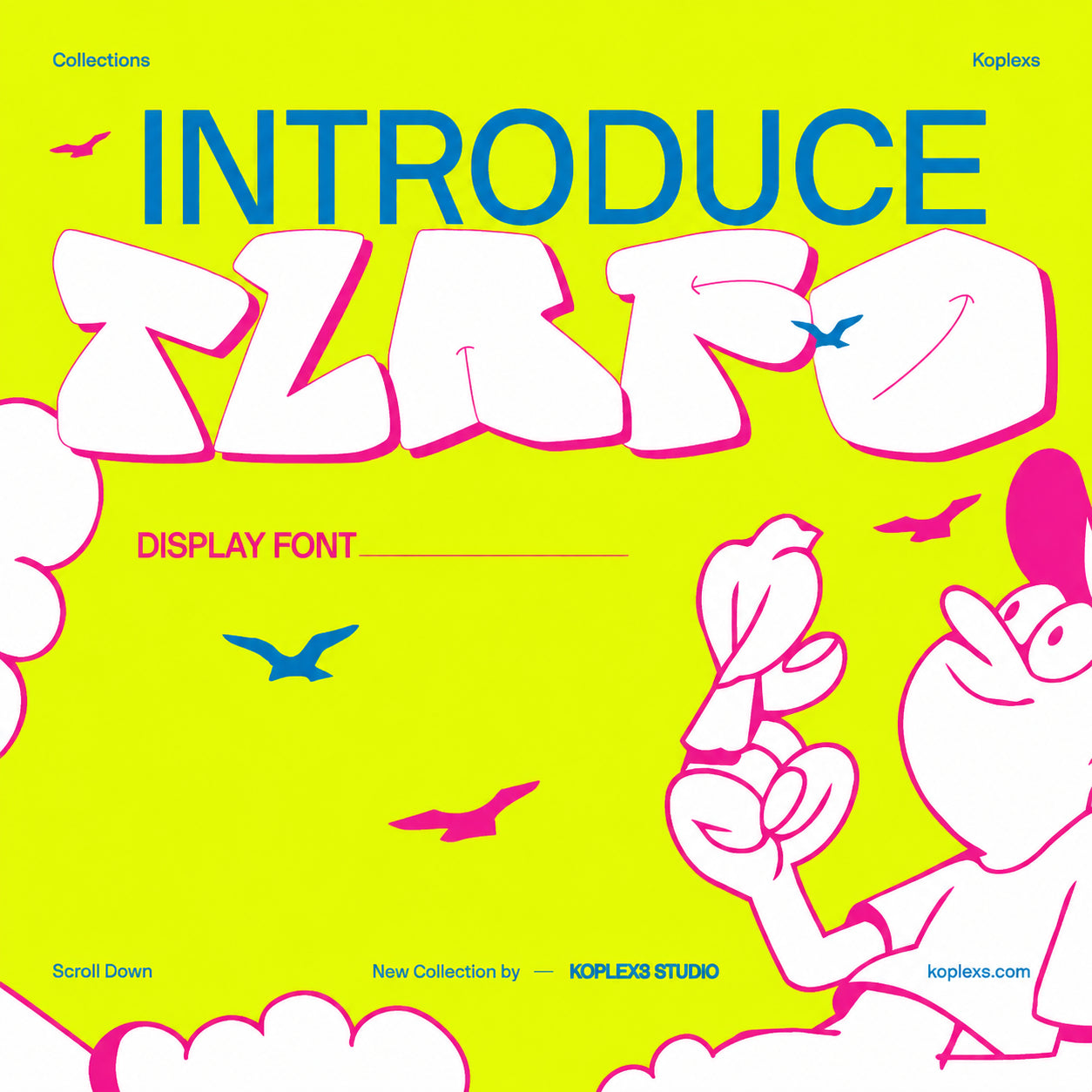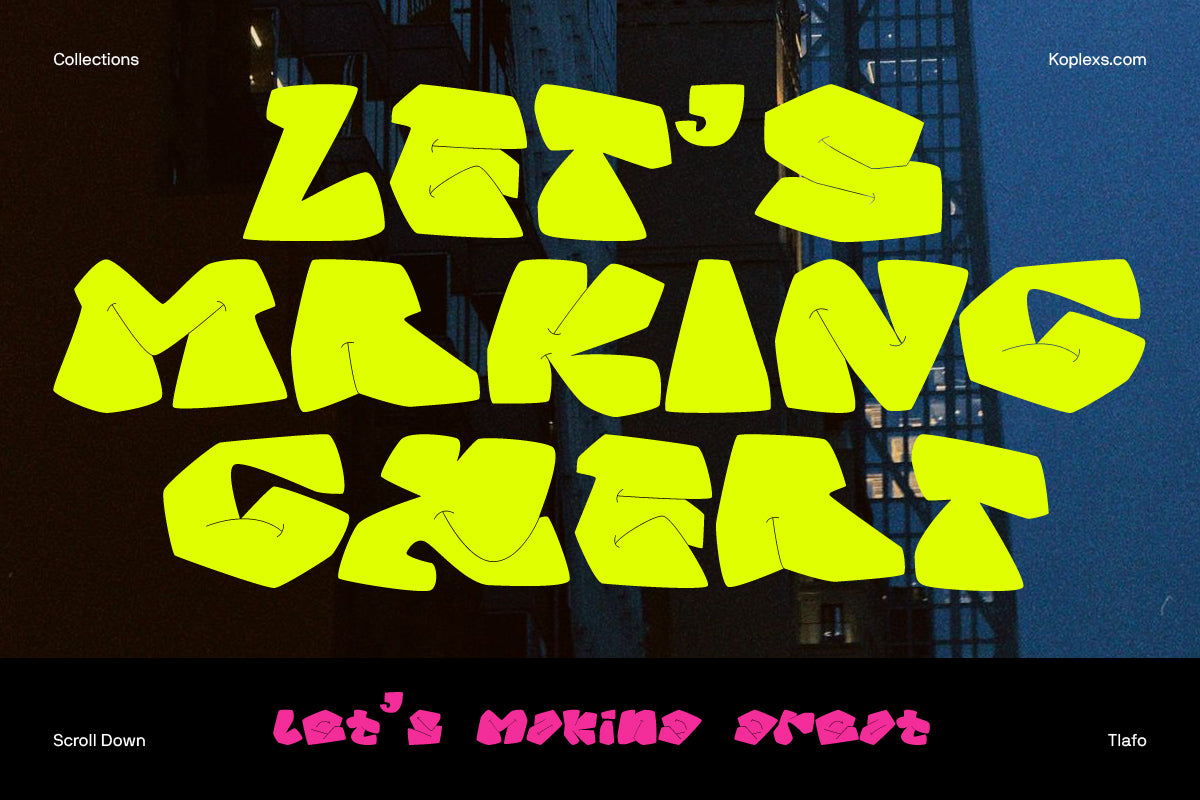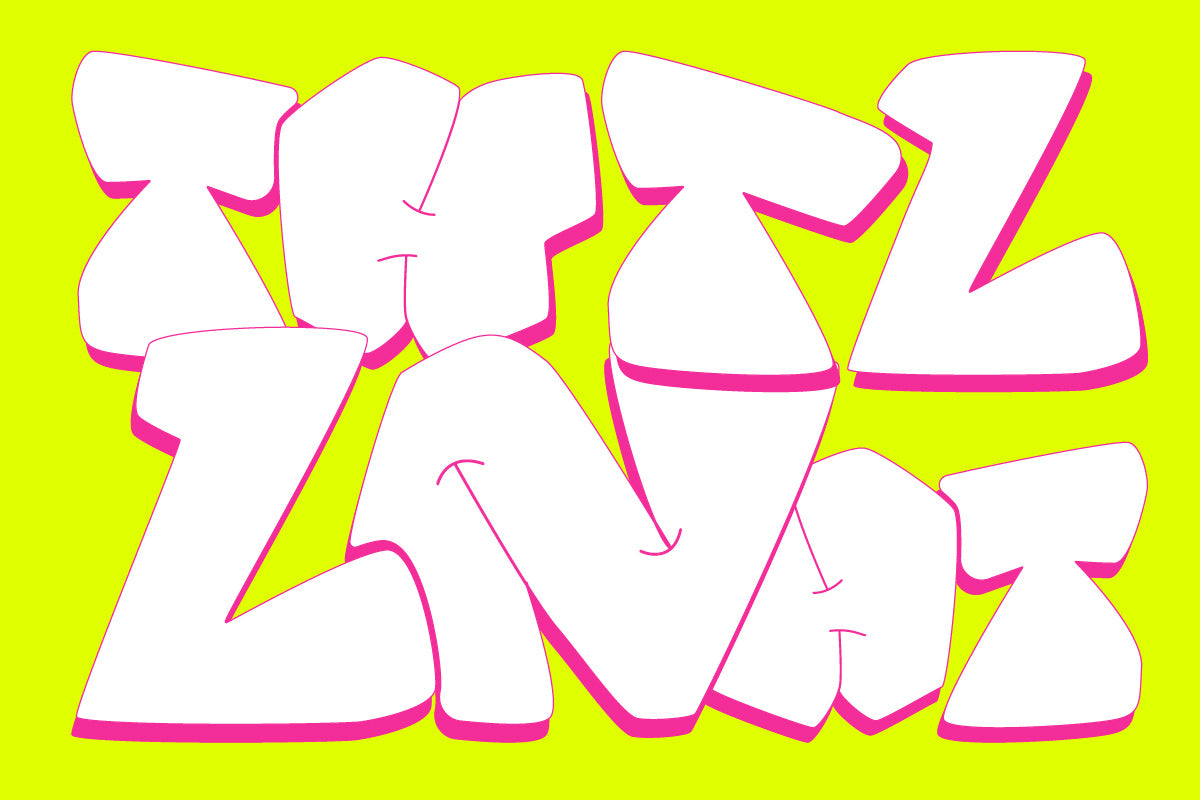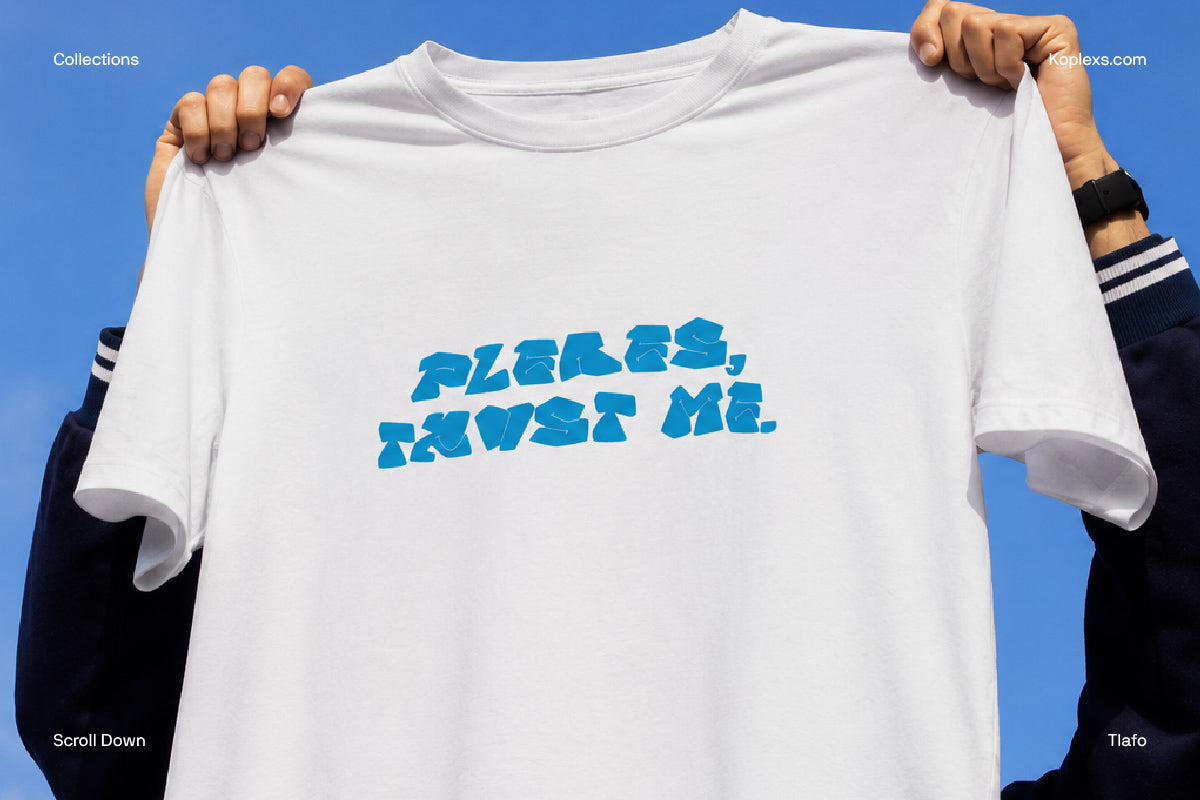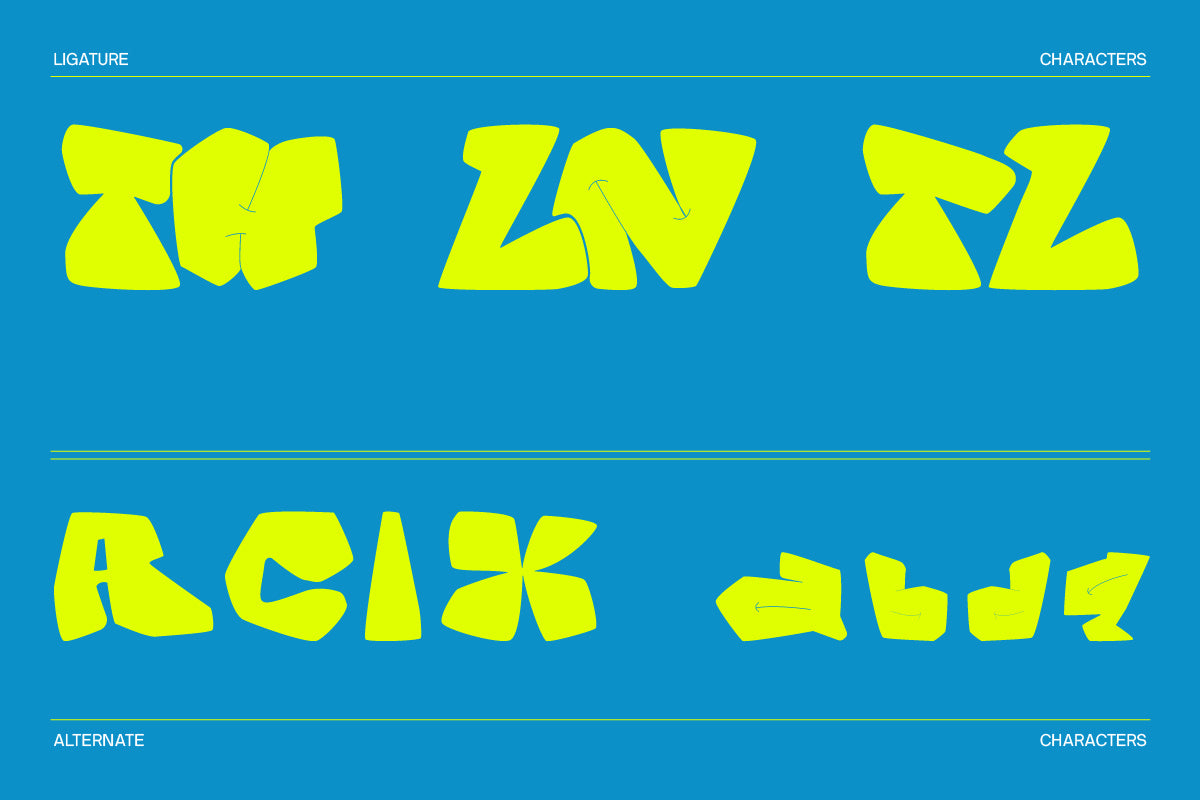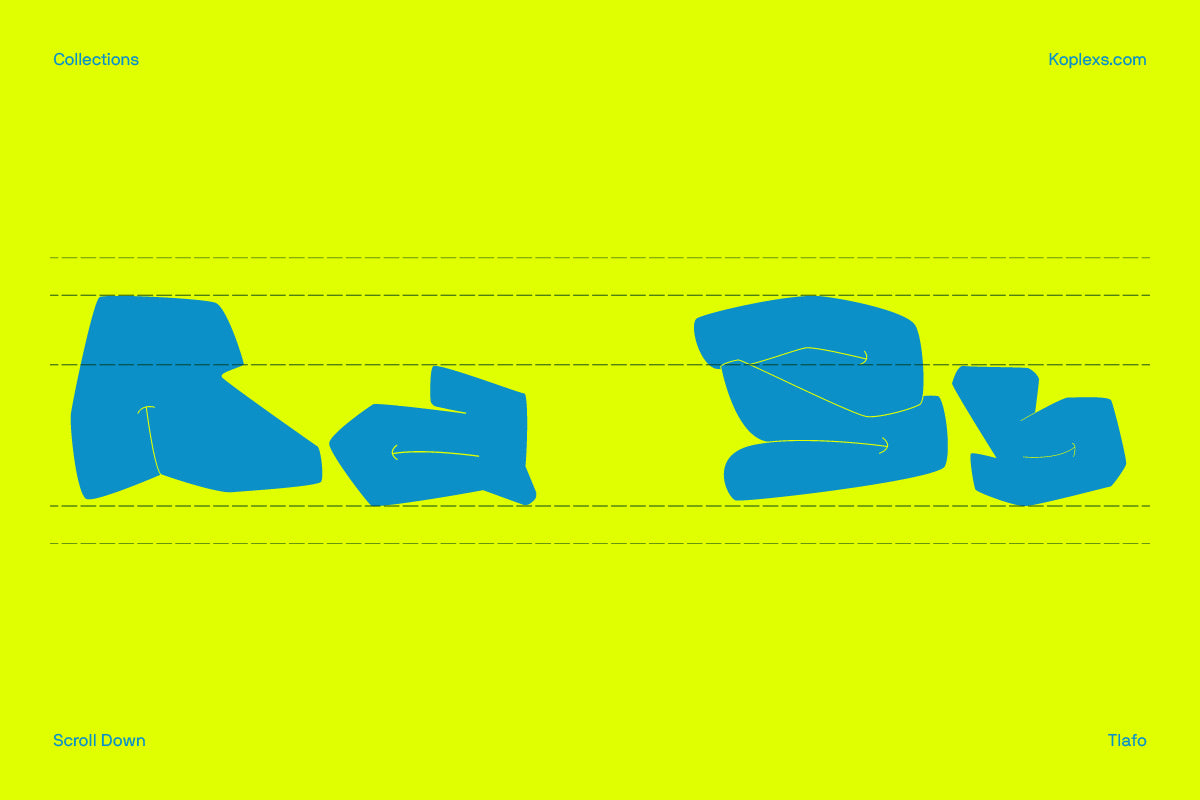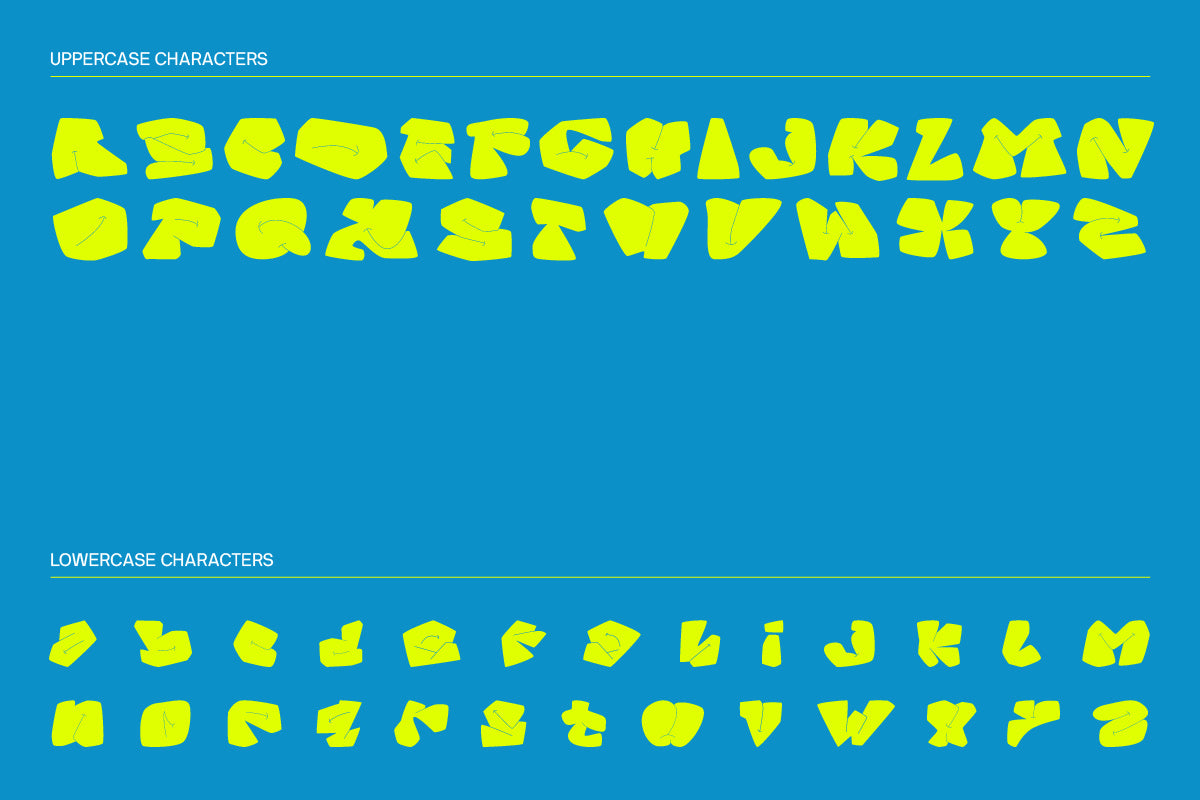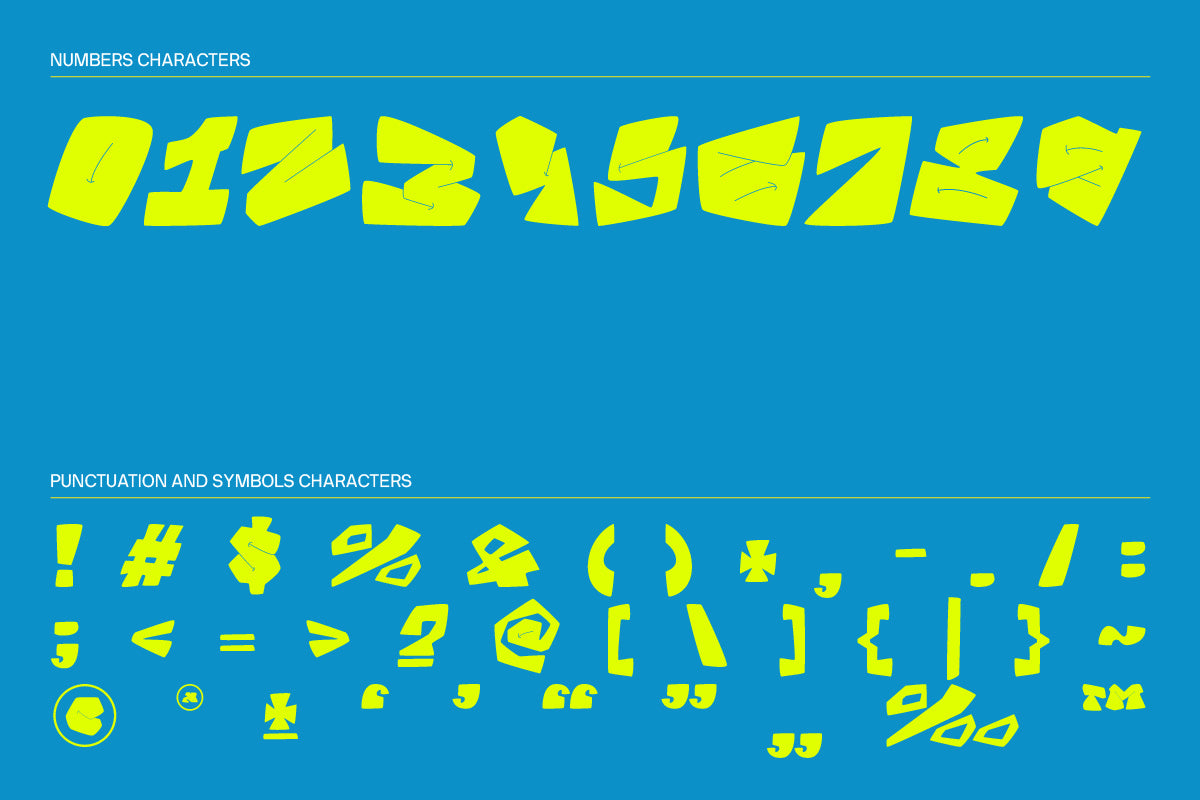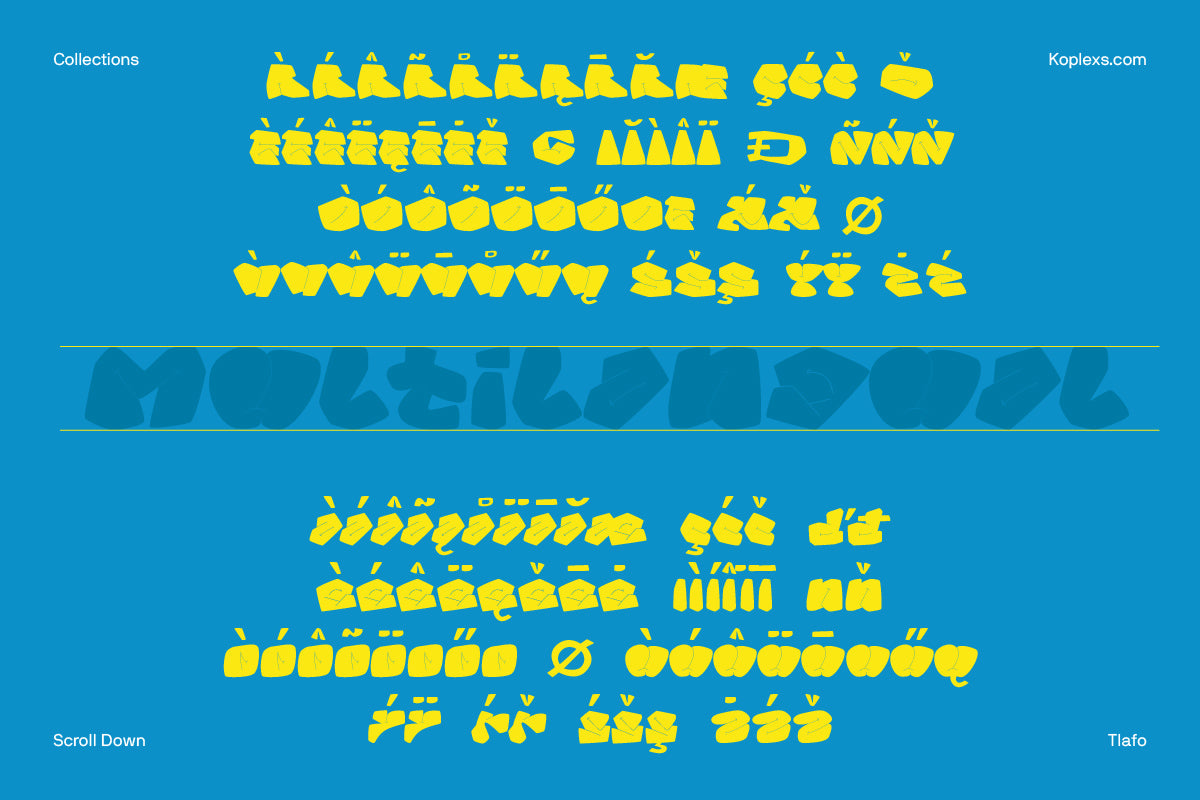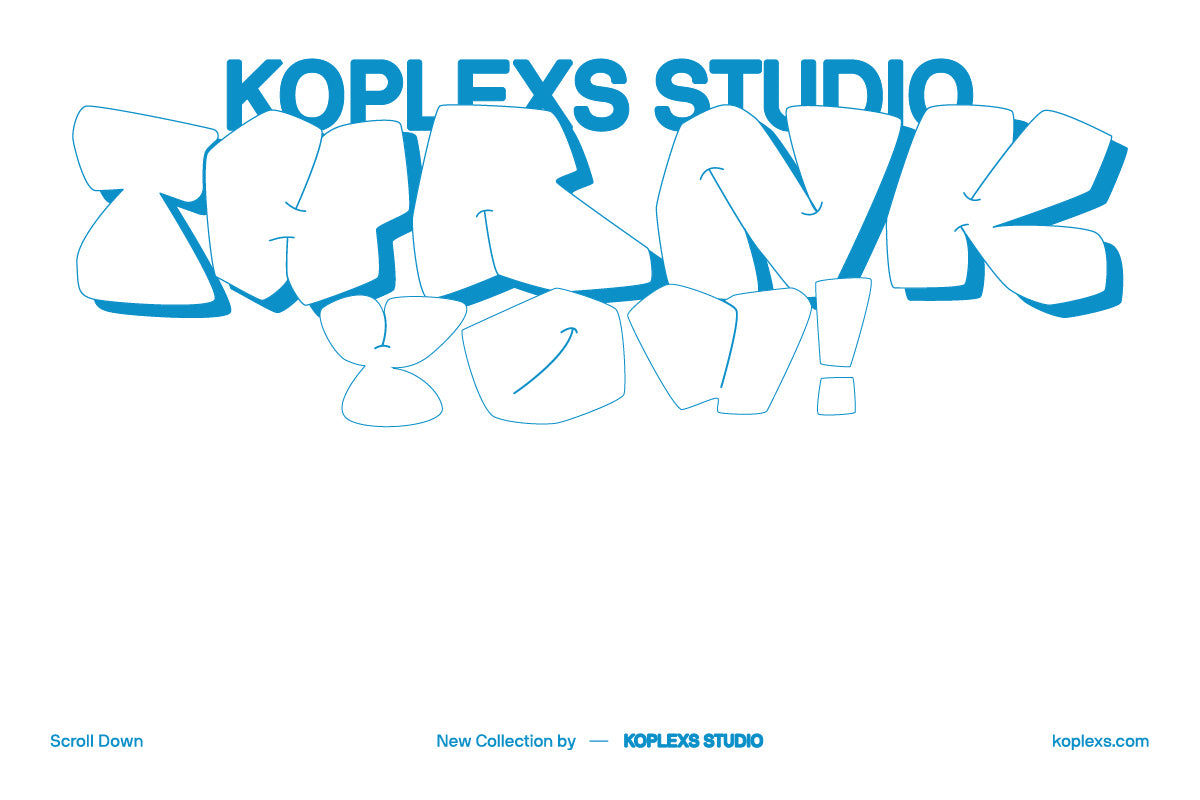
Tlafo Font | Chunky Playful Display Font
Tlafo Font
Tlafo Font is a bold and playful display typeface built for designs that are not afraid to take up space.
With chunky letterforms, soft rounded shapes, irregular proportions, and a fun hand-drawn attitude, Tlafo brings a mix of bubble typography, cartoon energy, and retro street style into one expressive typeface.
The oversized shapes give every word a strong personality, making Tlafo especially effective for short headlines, logos, titles, and graphics where typography needs to become the main visual element.
It feels playful without being too childish, bold without feeling rigid, and imperfect in just the right way.
Style & Mood
Chunky, playful, bubbly, quirky, bold, rounded, cartoon-inspired, expressive, retro, and energetic.
Tlafo works best when you want the type to do more than communicate a message. It becomes part of the artwork itself.
Make it big, keep it playful, and give your next project a louder personality with Tlafo Font.
Tlafo Font is a bold and playful display typeface featuring chunky letterforms, soft rounded shapes, and irregular proportions. Designed for impactful visual communication, it combines elements of bubble typography, cartoon energy, and retro street style, making it suitable for a variety of design projects.